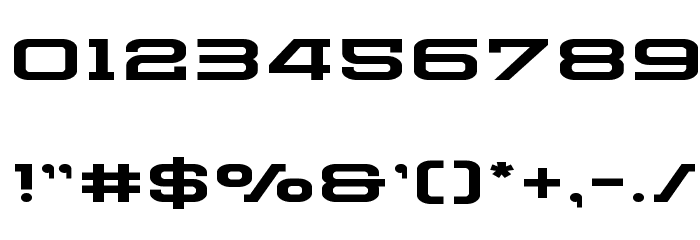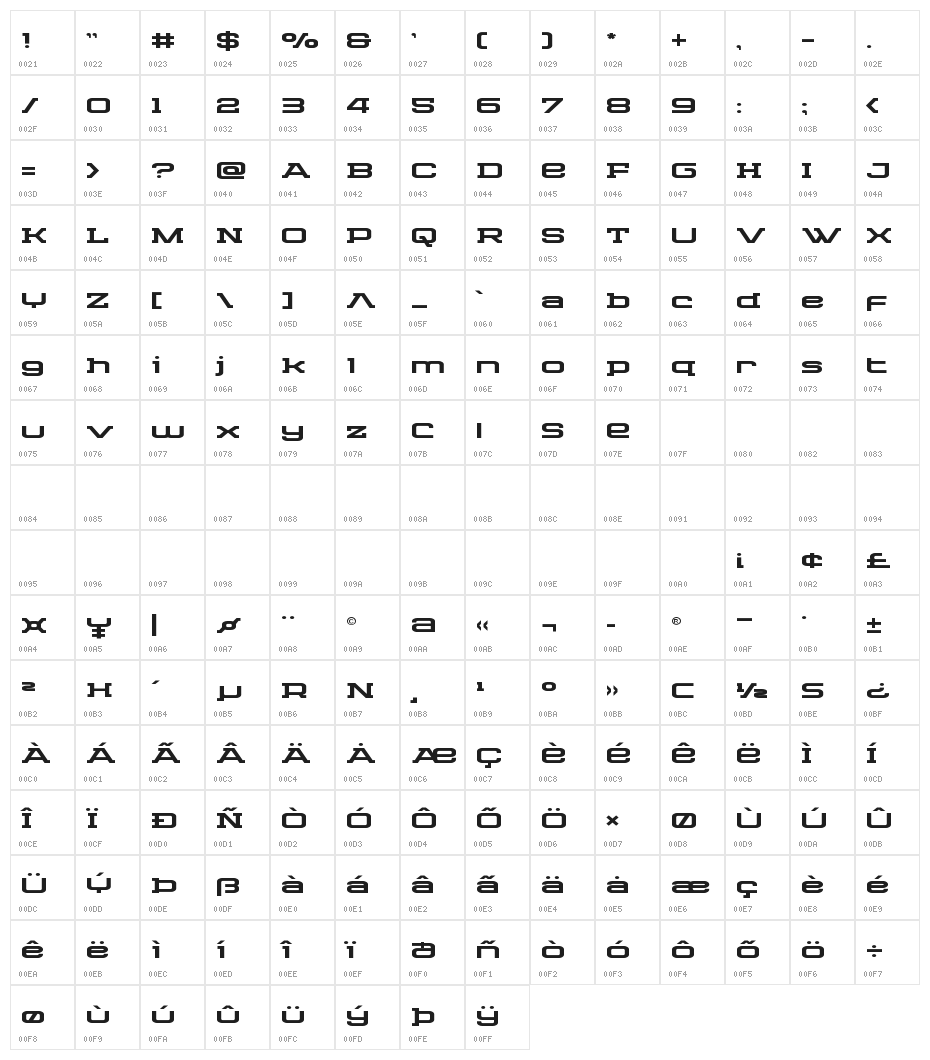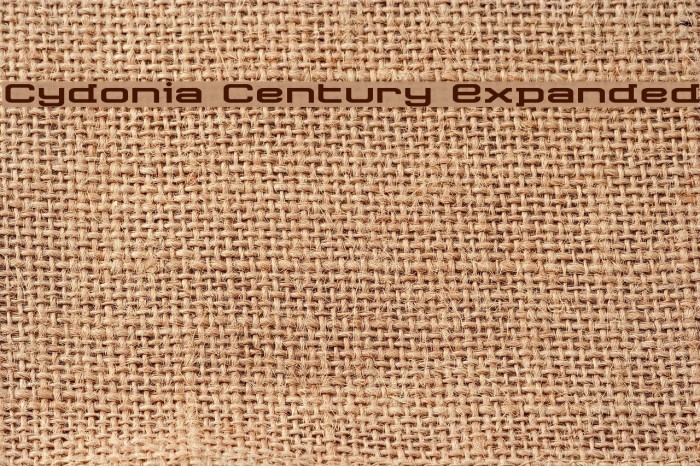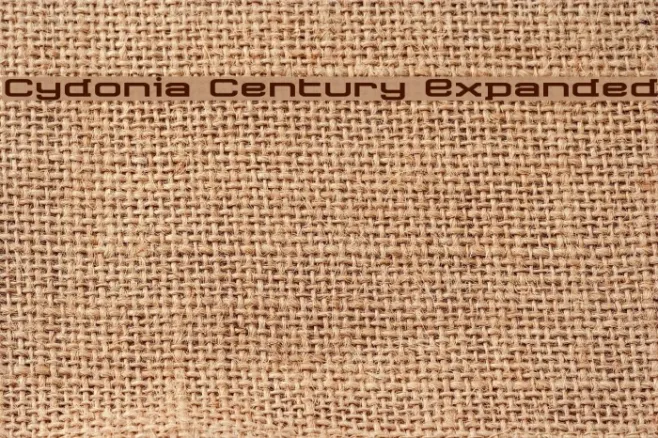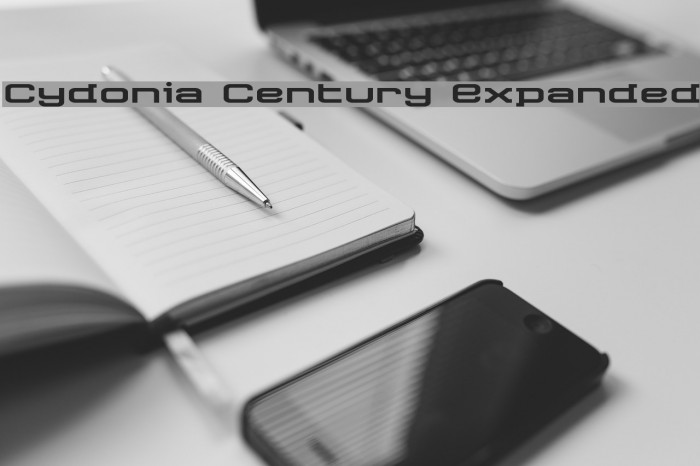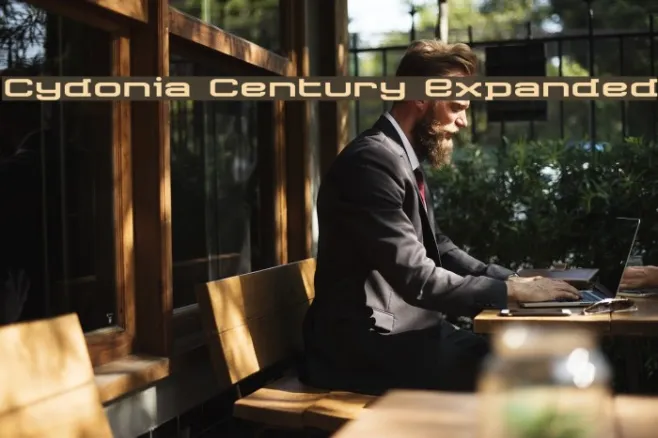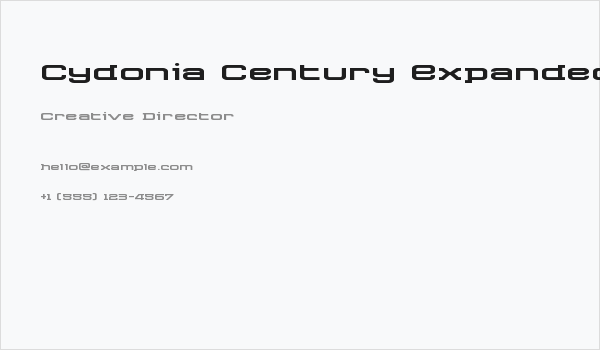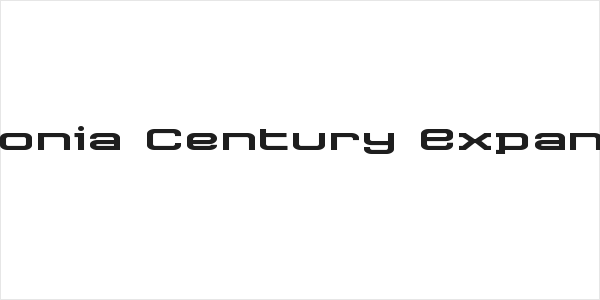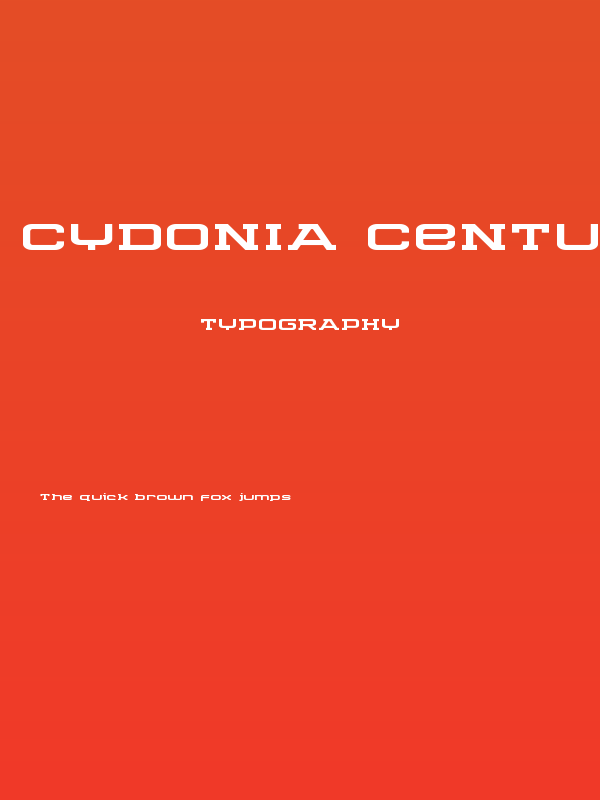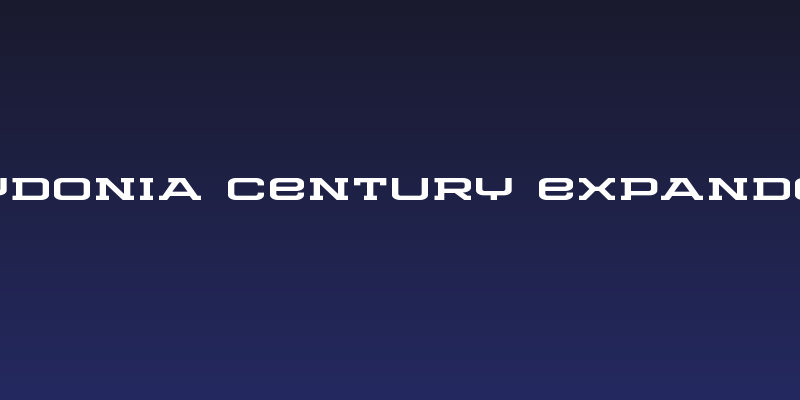
Cydonia Century Expanded Font
Cydonia Century Expanded Description
This font features a bold and expanded style with a modern, futuristic aesthetic. The characters are distinctly geometric, with a uniform stroke width that gives it a strong, stable appearance. The uppercase letters are particularly striking, with sharp angles and a wide stance that commands attention. The lowercase letters maintain the same geometric style, offering a cohesive look across different text cases. Numbers and special characters are designed with the same attention to detail, ensuring readability and consistency. This font's expanded width and bold presence make it ideal for impactful designs.
Proposed ProjectsIdeal for branding, headlines, posters, and any design requiring a strong, modern look.